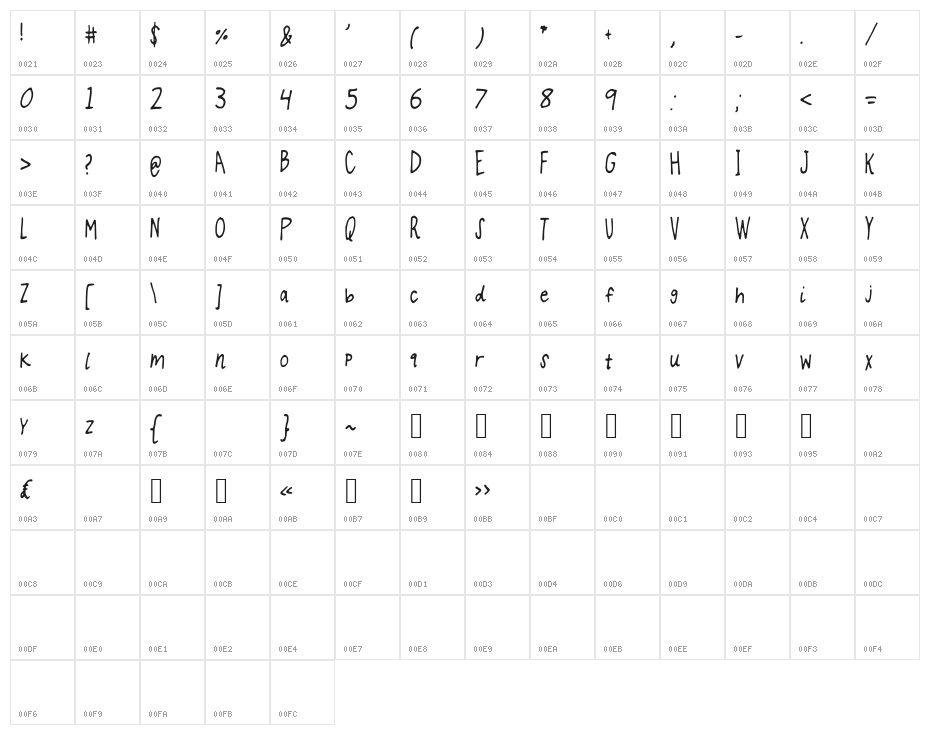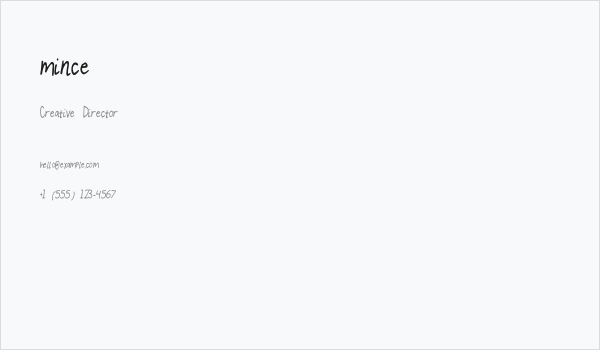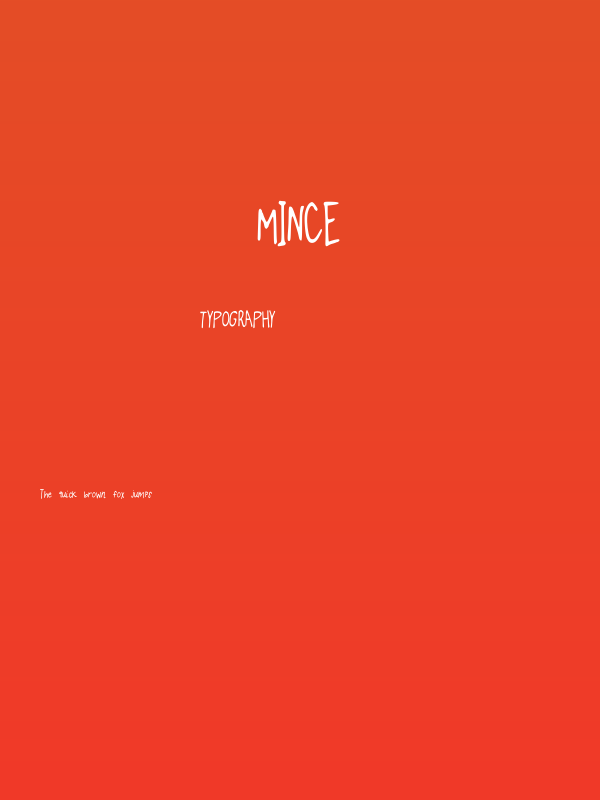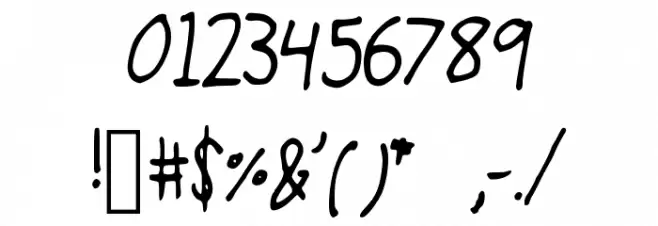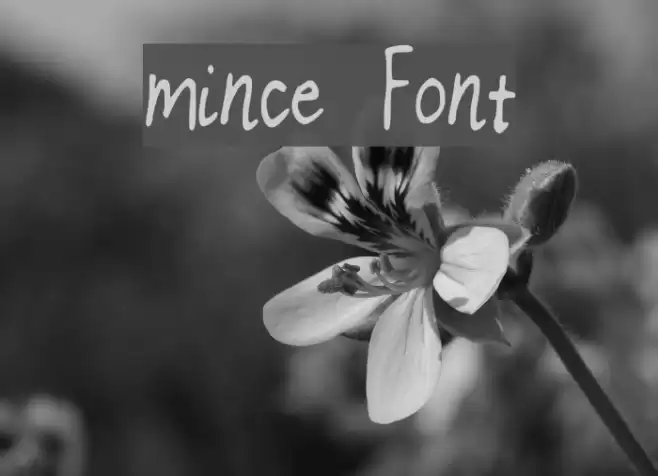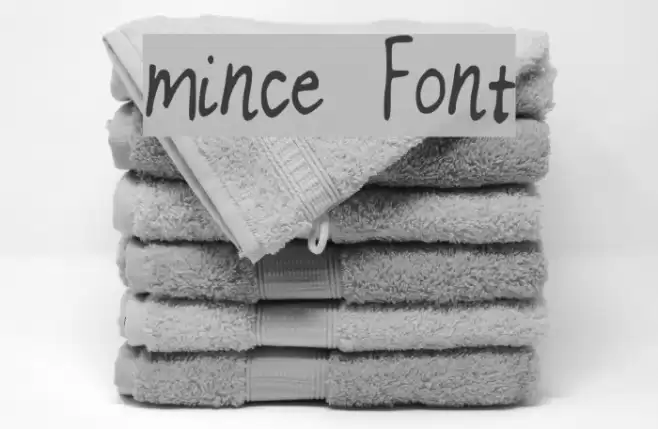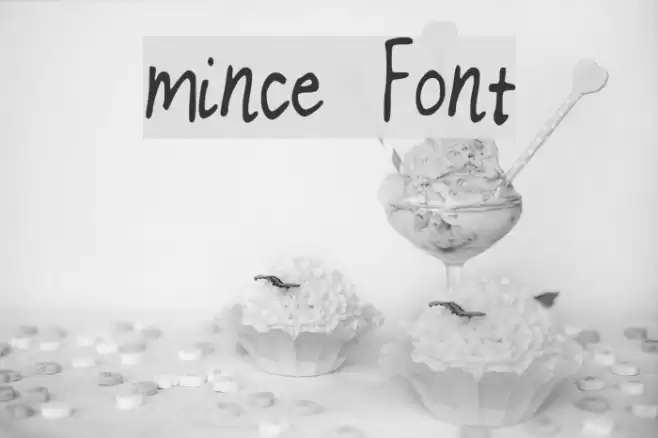
mince Font
mince Description
This font features a playful and casual handwritten style, characterized by its irregular and slightly whimsical letterforms. The uppercase letters are bold and slightly uneven, giving a sense of spontaneity and informality. The lowercase letters maintain a consistent flow, with rounded edges and a friendly appearance. The numerals are clear and legible, matching the overall informal aesthetic. Special characters are creatively integrated, maintaining the playful tone. This font is ideal for projects that require a personal touch or a relaxed, approachable feel.
| Proposed Projects | Greeting cards, children's books, casual branding, social media graphics, and personal blogs. |